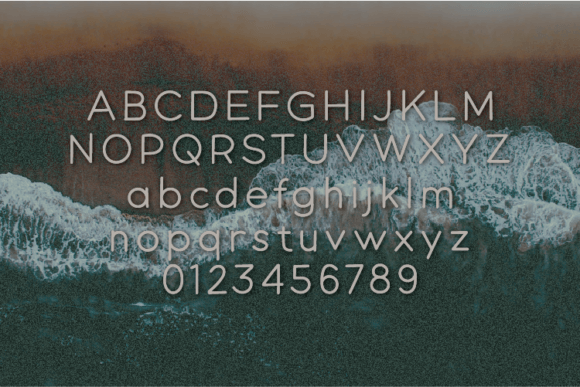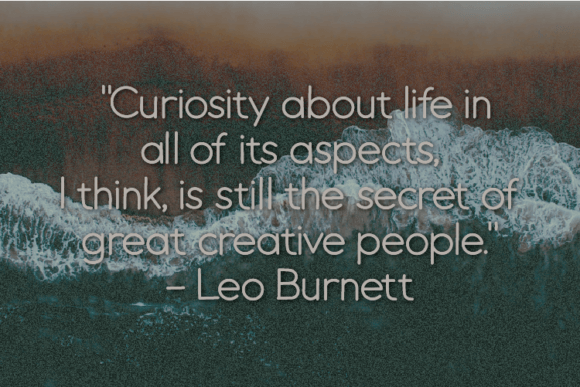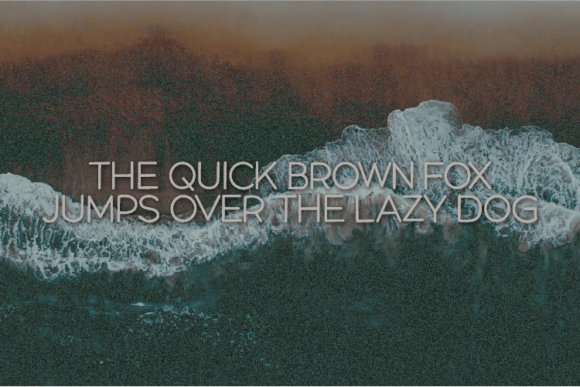
Introducing Economical Font: Elevate Your Craft with Elegance and Ease
In the world of design, the right font can make all the difference. It’s not just about conveying a message; it’s about doing so with style and impact. For crafters, designers, and businesses looking to stand out, the Economical font offers a refreshing solution. This casual and neat sans serif font is designed to impress with its natural and elegant style, making it the perfect choice for anyone looking to enhance their craft with minimal effort.
The Economical Advantage: Simplicity Meets Sophistication
Economical Font strikes the perfect balance between simplicity and sophistication. Its sans serif design ensures clarity and readability, making it versatile for various applications, from digital media to print. The font’s clean lines and elegant curves bring a touch of modernity and freshness to any project, ensuring that your product stands out from the competition.
Key Features of Economical Font
- Casual and Neat Design: Economical Font boasts a casual yet neat appearance, making it suitable for a wide range of projects, from crafting and DIY blogs to professional branding.
- Sans Serif Elegance: The font’s sans serif design offers a clean and contemporary look that appeals to modern tastes.
- Elegant Style: With its natural flow and elegant curves, Economical Font adds a touch of sophistication to any text.
- Versatility: Its readability and aesthetic appeal make it perfect for headings, body text, and more.
Applications of Economical Font
The versatility of Economical Font makes it an excellent choice for various applications:
- Branding: Establish your brand’s identity with a font that exudes elegance and approachability.
- Digital Content: Enhance your website, blog, or social media posts with a font that captures attention and retains readability.
- Print Materials: From business cards to brochures, Economical Font ensures your print materials look modern and professional.
- Crafting and DIY Projects: Add a professional touch to your crafting or DIY project descriptions, tutorials, or packaging.
Why Choose Economical Font?
In a market flooded with fonts, Economical stands out for several reasons:
- Easy to Read: Its clear and simple design ensures your message is conveyed effectively.
- Highly Versatile: Suitable for both digital and print media, making it a go-to font for various projects.
- Time-Saving: With Economical Font, you can achieve professional-looking results with minimal effort.
- Unique Elegance: Offers a distinctive yet approachable feel that can set your project apart.
Economical Font is more than just a typeface; it’s a tool to elevate your craft and make your product stand out. Its blend of casual neatness and elegant style makes it an excellent choice for designers, crafters, and businesses aiming for a modern yet approachable look. By choosing Economical Font, you’re not just selecting a font; you’re enhancing your project’s potential to leave a lasting impression. Whether you’re working on a branding project, creating digital content, or crafting something unique, Economical Font is your partner in achieving elegance and effectiveness with ease.
Embrace the simplicity, elegance, and versatility of Economical Font. Let it be the key to unlocking a more sophisticated and impactful visual identity for your projects.